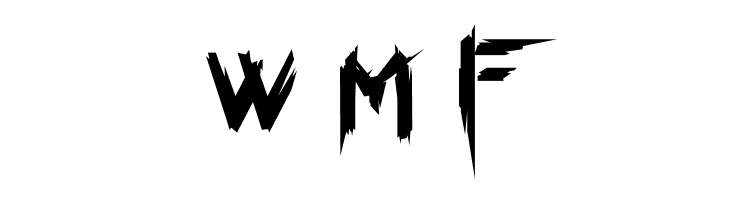
A jagged, thorn-like font with an edgy, rebellious style.
A bold, angular font with sharp, thorn-like edges for a fierce look.
An edgy, thorn-inspired font with intricate, jagged details.
A rugged, distressed font with jagged edges and a chaotic, intense style.
A jagged, edgy font with thorn-like strokes, perfect for intense and rebellious designs.
A bold, distressed font with a rugged, volcanic texture.
A bold, distressed font with a grunge, stencil-like appearance.
A decorative, Halloween-themed font with bold, sign-like characters.
A decorative font with thorn-like, jagged edges for a wild and dramatic look.
A bold, jagged font with a horror-inspired, hand-drawn style.
An edgy, barbed wire-inspired font with sharp, pointed edges.
A dramatic, thorny font with a chaotic and edgy style.
A bold, thorny, and gothic font with intricate, jagged edges.
A thorny, decorative font with sharp, barbed wire-like extensions.
A thorn-adorned decorative font with a rugged and edgy style.
A bold, jagged font with a spooky, dynamic design.
A sharp, thorny font with a dramatic and edgy appearance.
A jagged, eerie font ideal for horror themes.
A sharp, thorny font with an edgy, intense design.
A bold, jagged font with sharp, thorny edges and an aggressive style.
A jagged, distressed font with sharp, irregular strokes for a chaotic look.
A bold, spiked font with elongated, pointed characters for dramatic impact.
A bold, jagged font with a fierce, edgy style.
A bold, toxic-themed display font with irregular, dripping shapes.